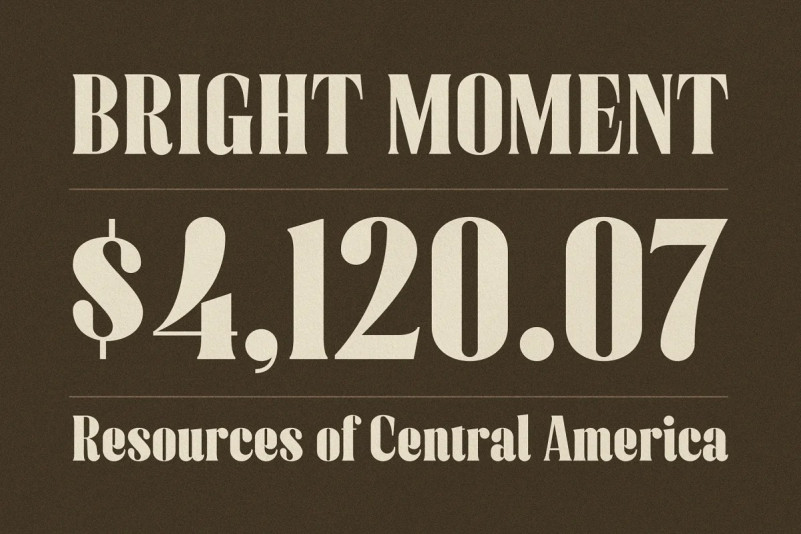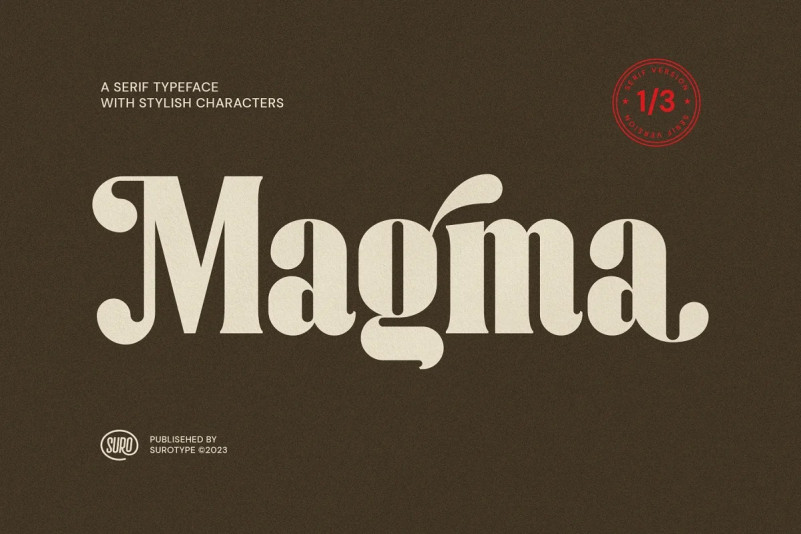
Magma Font
Magma Font is a serif display typeface with dynamic curve ,very suitable as to make a design choice for Headline, Movie Title, packaging, branding and more other creative project. Magma’s also has alternative characters such as Stylistic Alternates, Stylistic Set, and Swash variant.